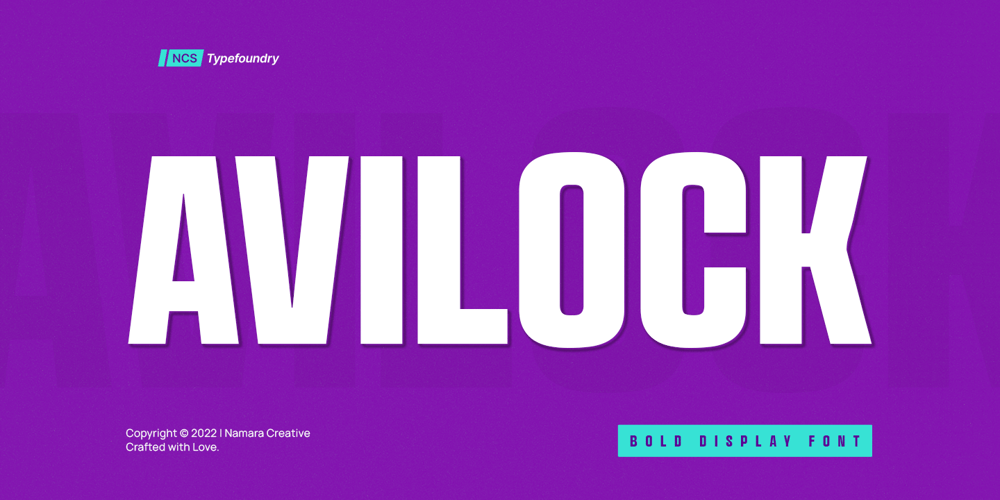
Avilock Font Family was designed by Toni Setiawan and published by Namara Creative Studio. Avilock contains 6 styles and family package options. Avilock is powerful bold display font Perfect for typography purposes that require a strong but subtle identity. Avaialble in all caps character, works great in any branding, logos, magazines and films.Features :- 6 Variant of Avilock Display (Included : Regular, Italic, Bold, Bold Italic, Rounded, Outline)- Multilingual Support and Punctuations Character.Feel free to message me if you have any questions or any requests. I will be happy to help you as much as possible, Thank You.